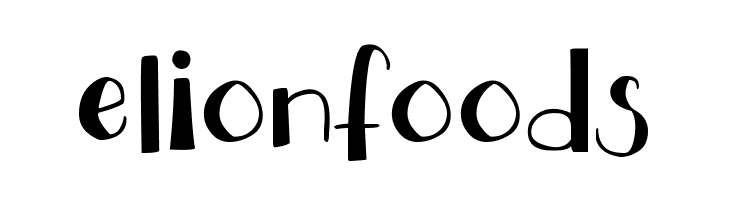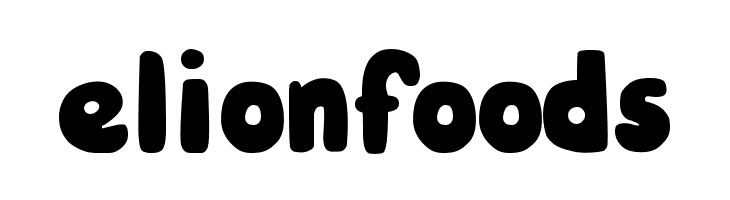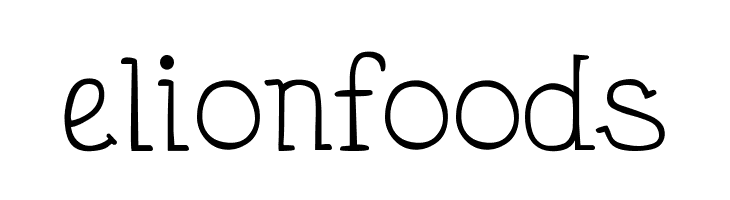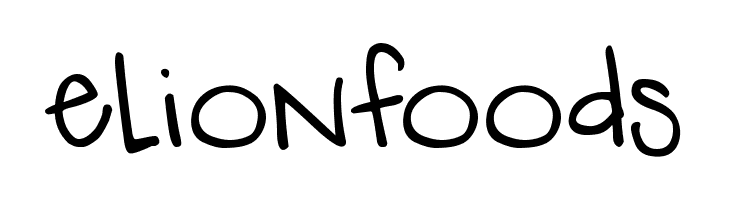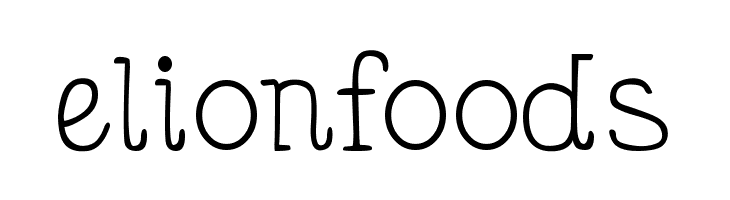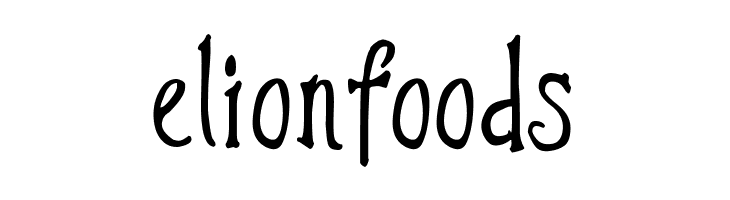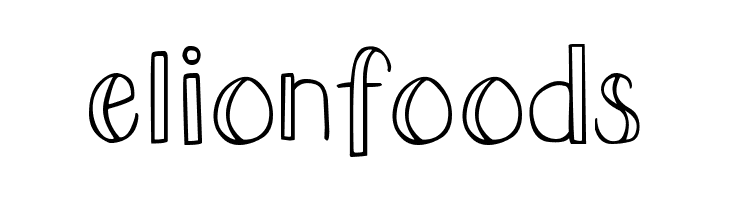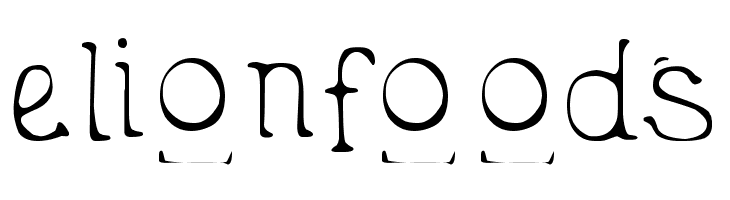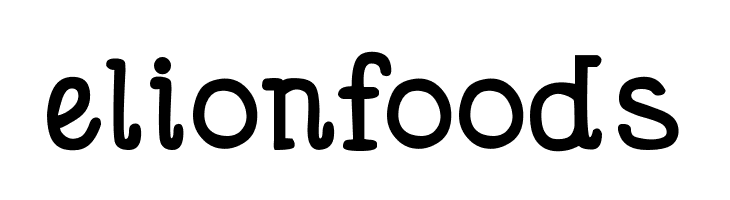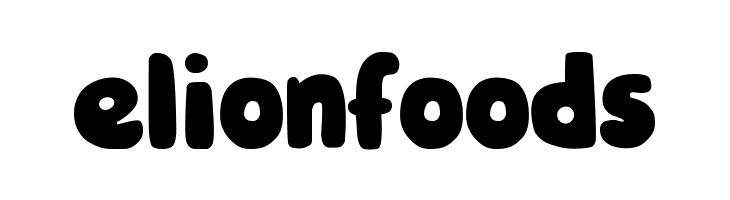
A playful, whimsical font with geometric and hand-drawn elements, perfect for festive designs.
A whimsical and playful font with bold and thin strokes, perfect for festive designs.
A playful, handwritten-style font with a whimsical and informal design.
A playful, bold serif font with rounded edges and consistent stroke width.
A playful, handwritten style with rounded edges and casual flow.
A playful, hand-drawn font with a whimsical and casual style.
A playful handwritten font with a casual, friendly appearance.
A bold, playful font with thick, rounded letters and a friendly style.
A bold, playful font with rounded, chunky letters and a whimsical style.
A whimsical, hand-drawn font with playful, irregular lines.